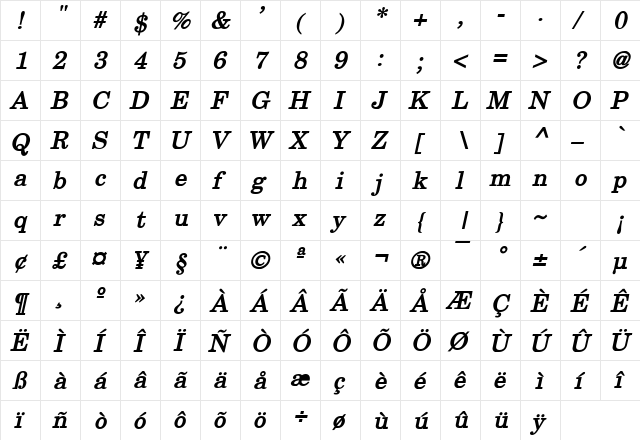
New Boston Wide Bold Italic
Design Context for New Boston Wide Typeface
New Boston Wide takes a measured approach to typography — its balanced proportions and neutral character make it a reliable workhorse for both digital and print work. The slanted form adds forward momentum and visual energy. The heavy weight commands attention and anchors typographic hierarchies.
Pro Tip: Use New Boston Wide for emphasis, pull quotes, and subheadings where its slanted energy can add rhythm to the layout.